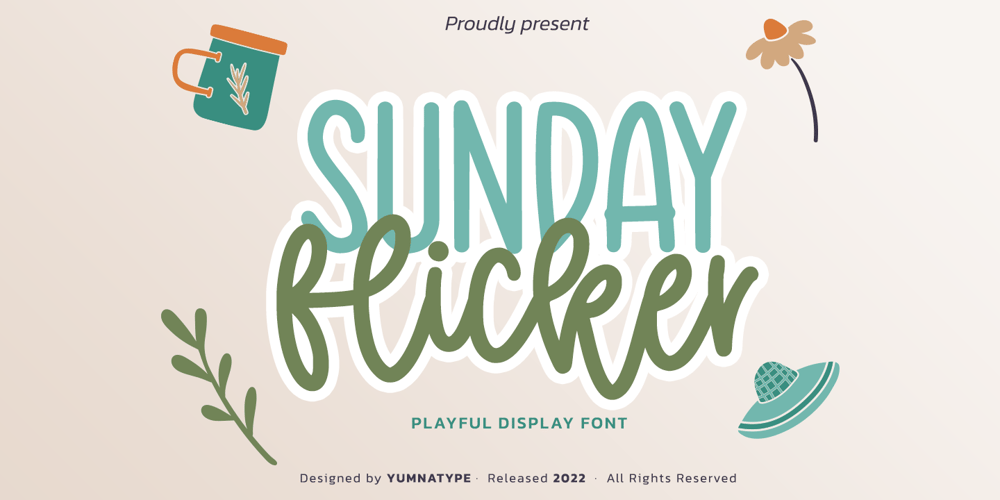
Sunday Flicker Font Family was designed by Donis Miftahudin and published by Yumna Type. Sunday Flicker contains 2 styles and family package options. Resulted from expertise and creativity, we present you the brand new font in special settings. Sunday Flicker is a display font in different capital and lowercase letters as its characteristic. Generally, it expresses friendly, fun displays in simply designed capital letters with low contrasts. Besides, the lower cases are in interconnected cursive styles to look similar to handwriting. With its intentionally improved styles to meet your design needs, this font is suitably applicable to use in various text sizes.Features: Multilingual Supports PUA Encoded Numerals and Punctuations Sunday Flicker fits for various design projects, such as posters, banners, logos, magazine covers, quotes, headings, printed products, merchandise, social media, etc. Find out more ways to use this font by taking a look at the font preview.Thanks for purchasing our fonts. Hopefully, you have a great experience using our font. Feel free to contact us for further information when you have a problem using the font. Thank you. Happy designing.